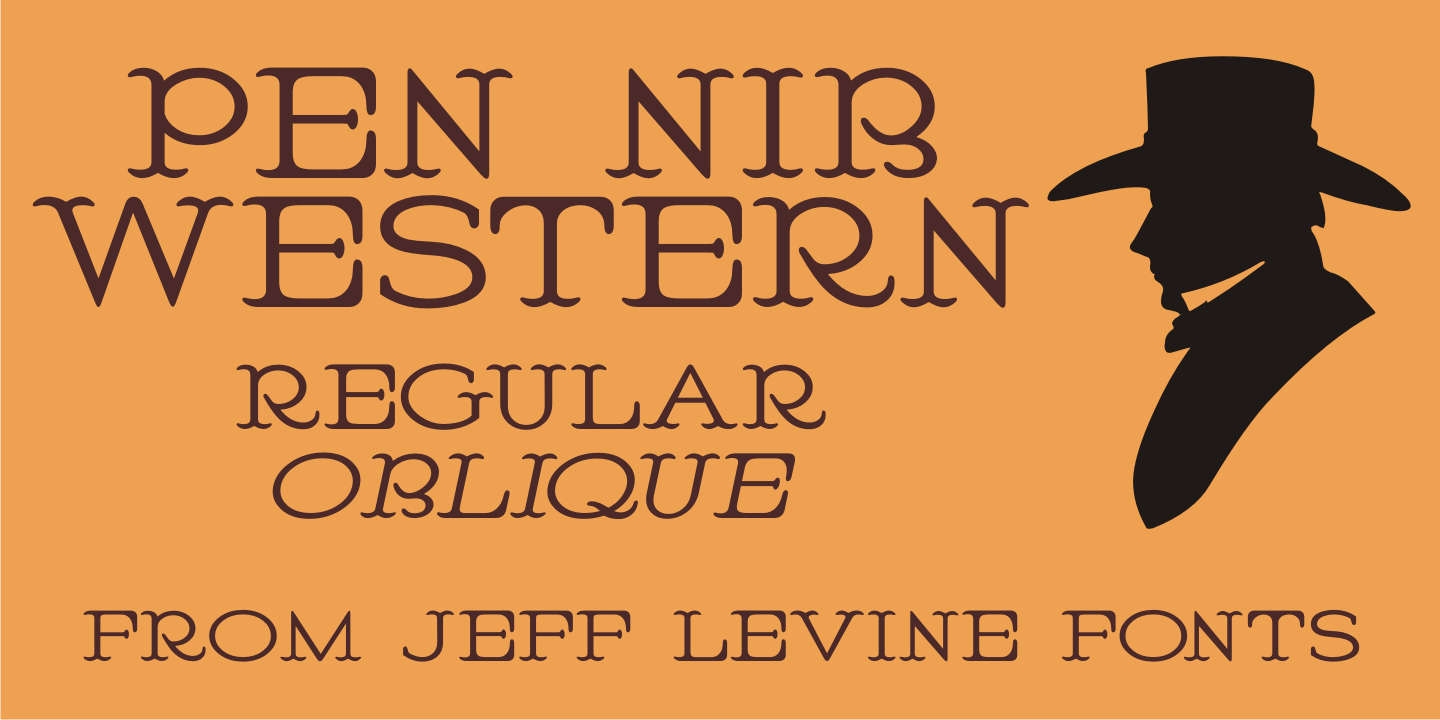
Pen Nib Western
Inspired by the hand lettered phrase 'the pen is mightier than the sword” in a 1923 promotional blurb for Speedball lettering pens, Pen Nib Western JNL recreates the decorative style of this vintage artistic gem in both regular and oblique versions.